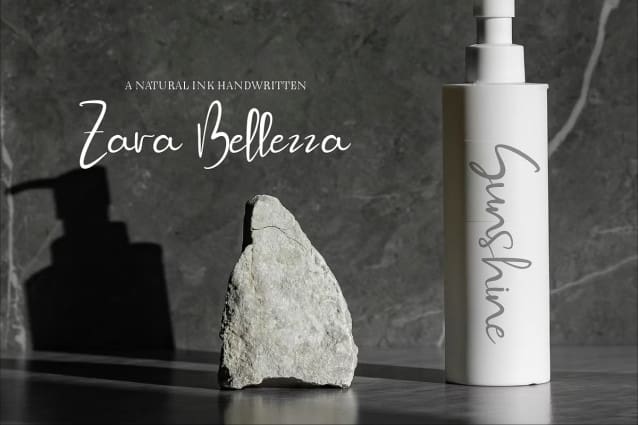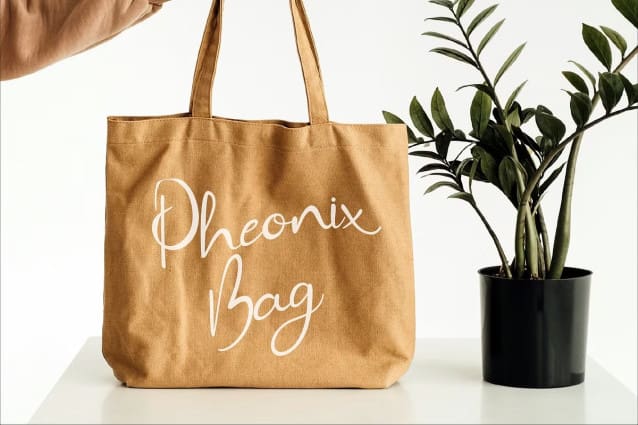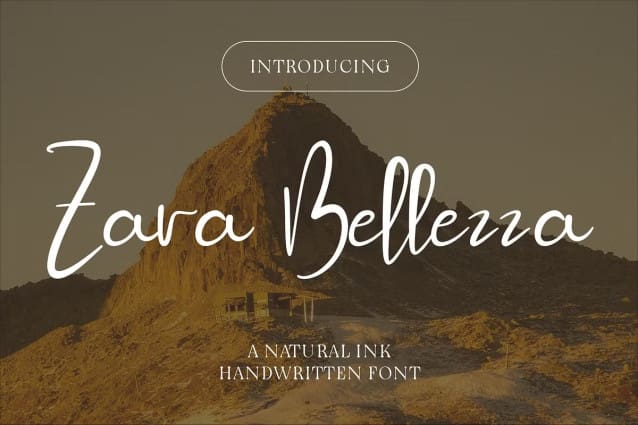
Zara Bellezza Font
Zara Bellezza Font is a refined natural ink handwritten font that combines smooth elegance with effortless charm. Its flowing strokes and subtle variations mimic the beauty of ink on paper, making it perfect for projects that demand sophistication and personality. Whether for branding, invitations, or editorial design, Zara Bellezza adds a touch of timeless beauty and warmth to any creation.